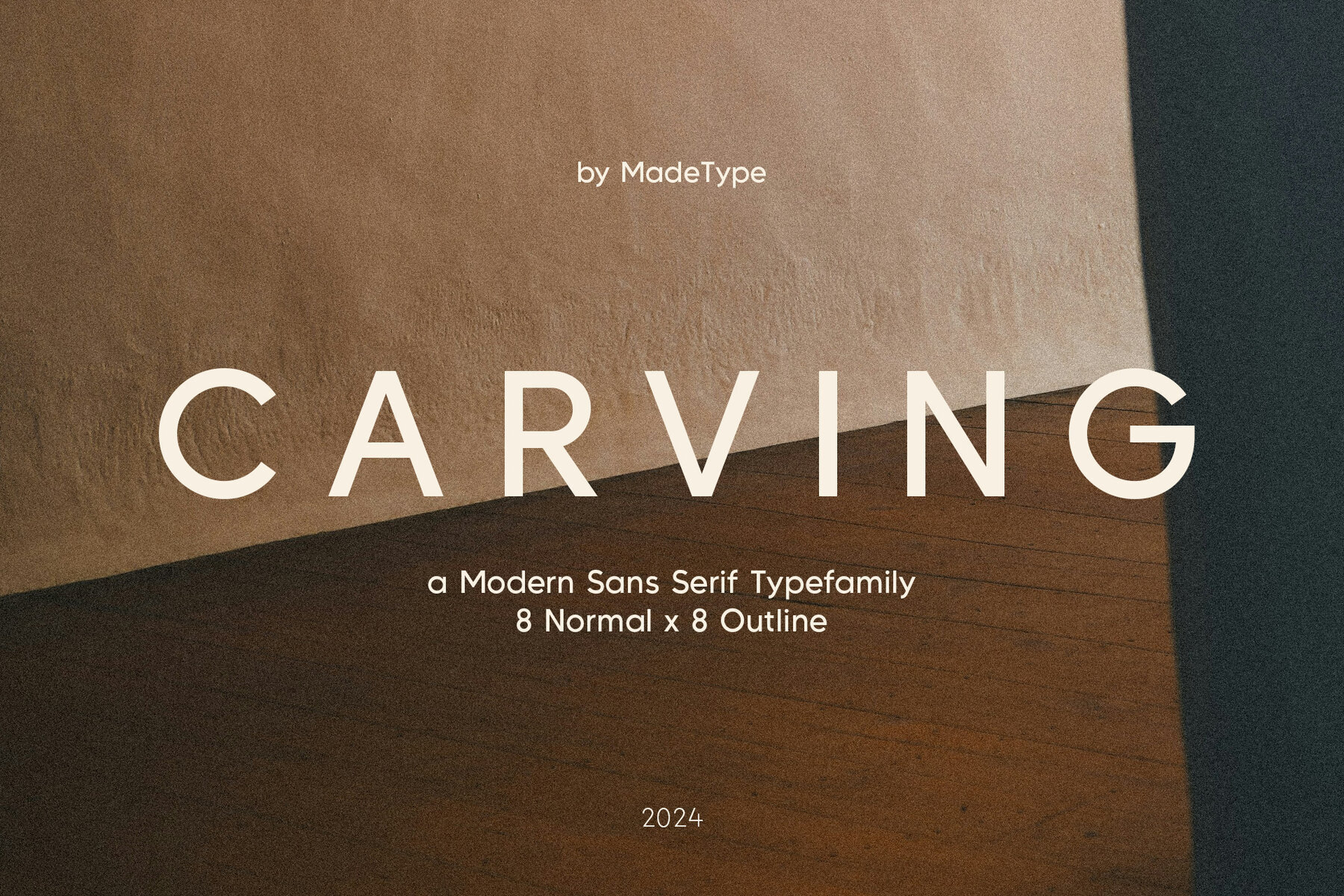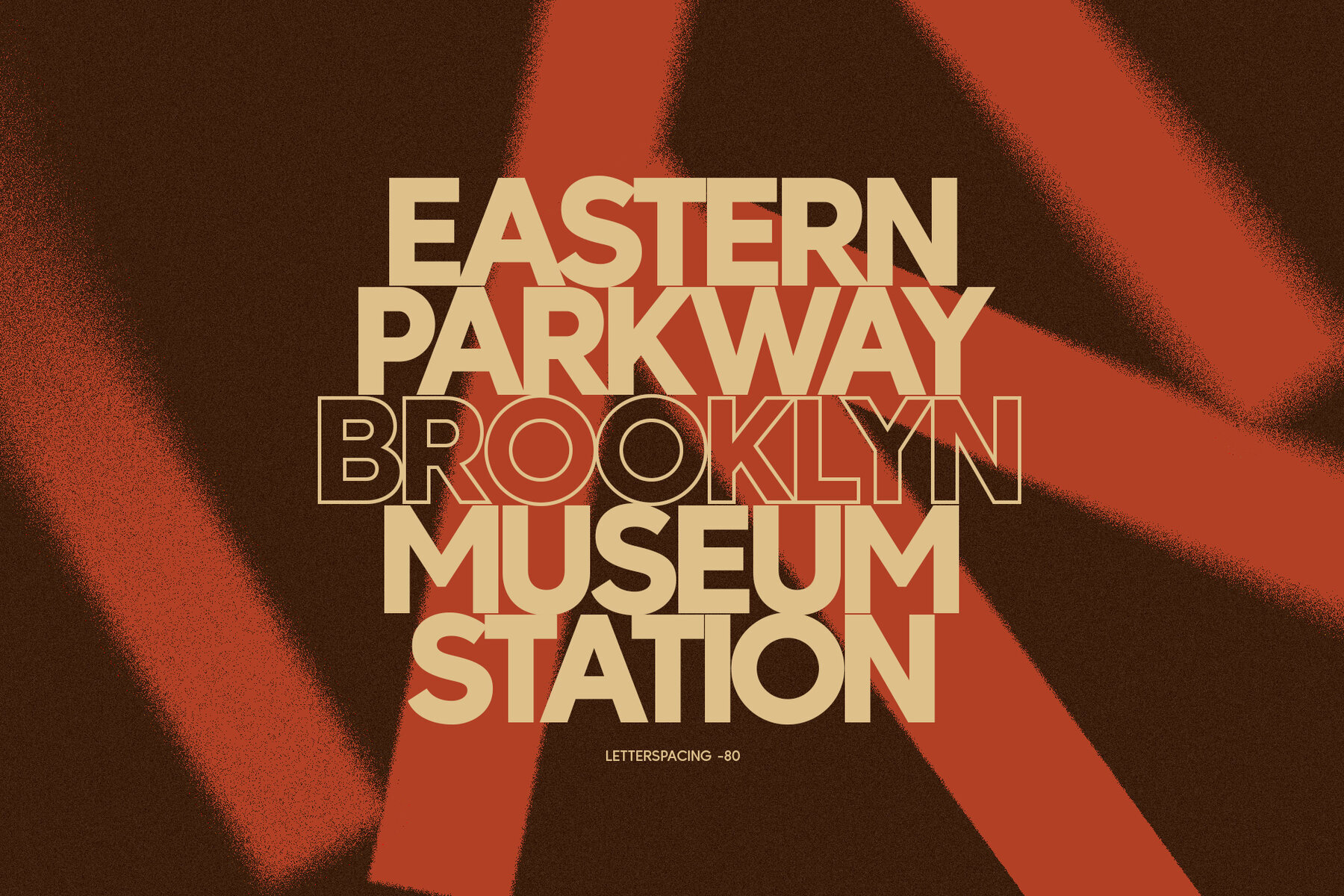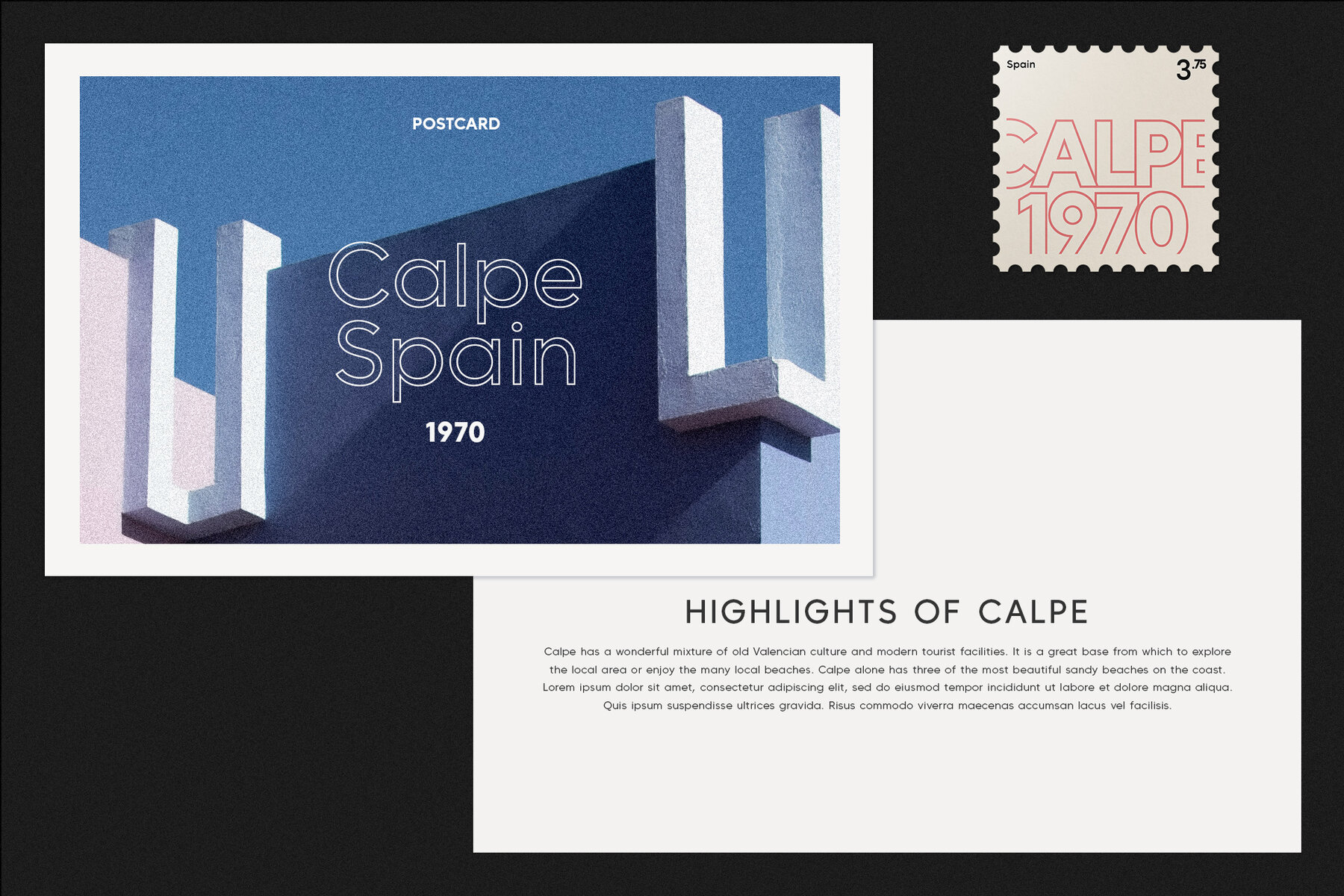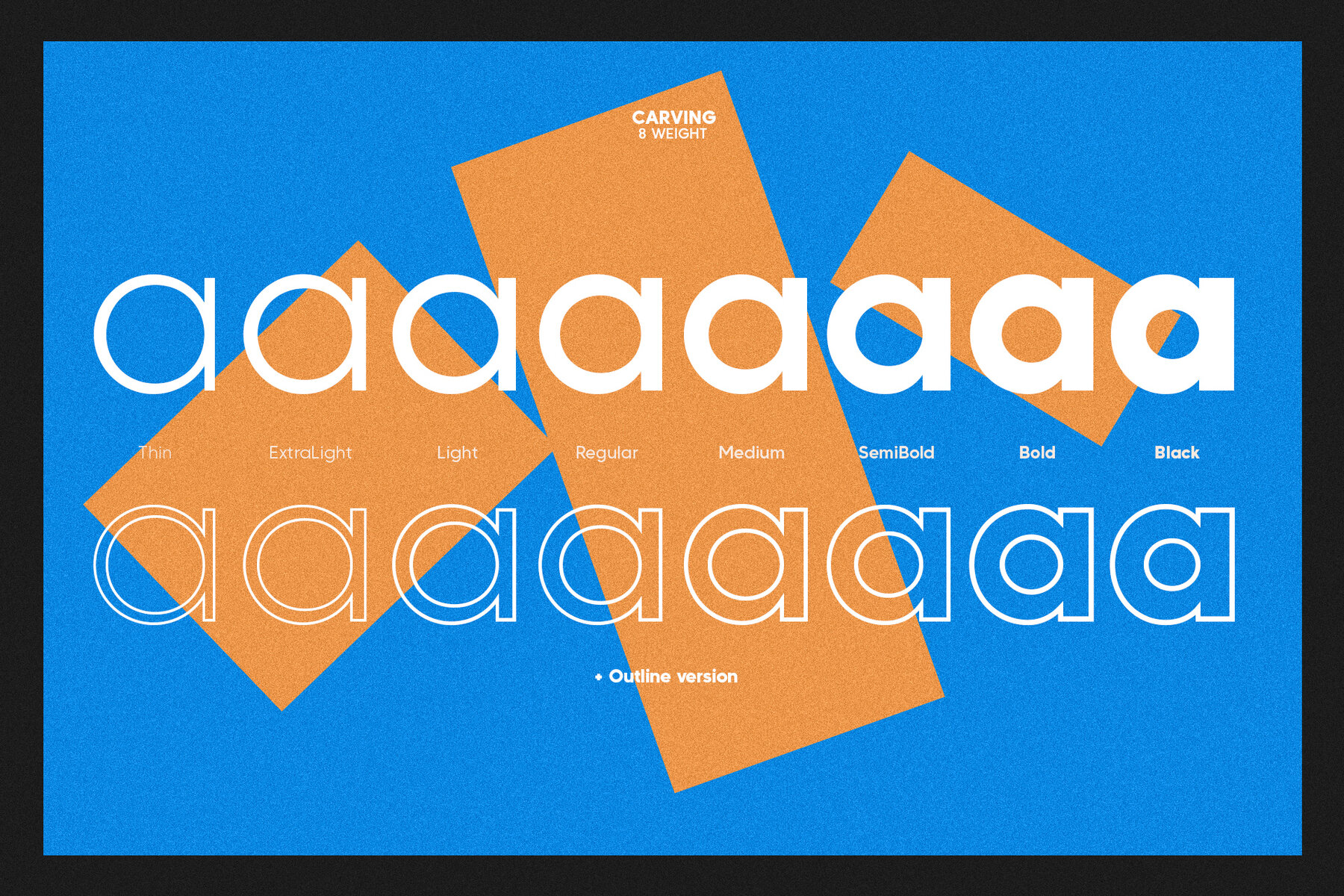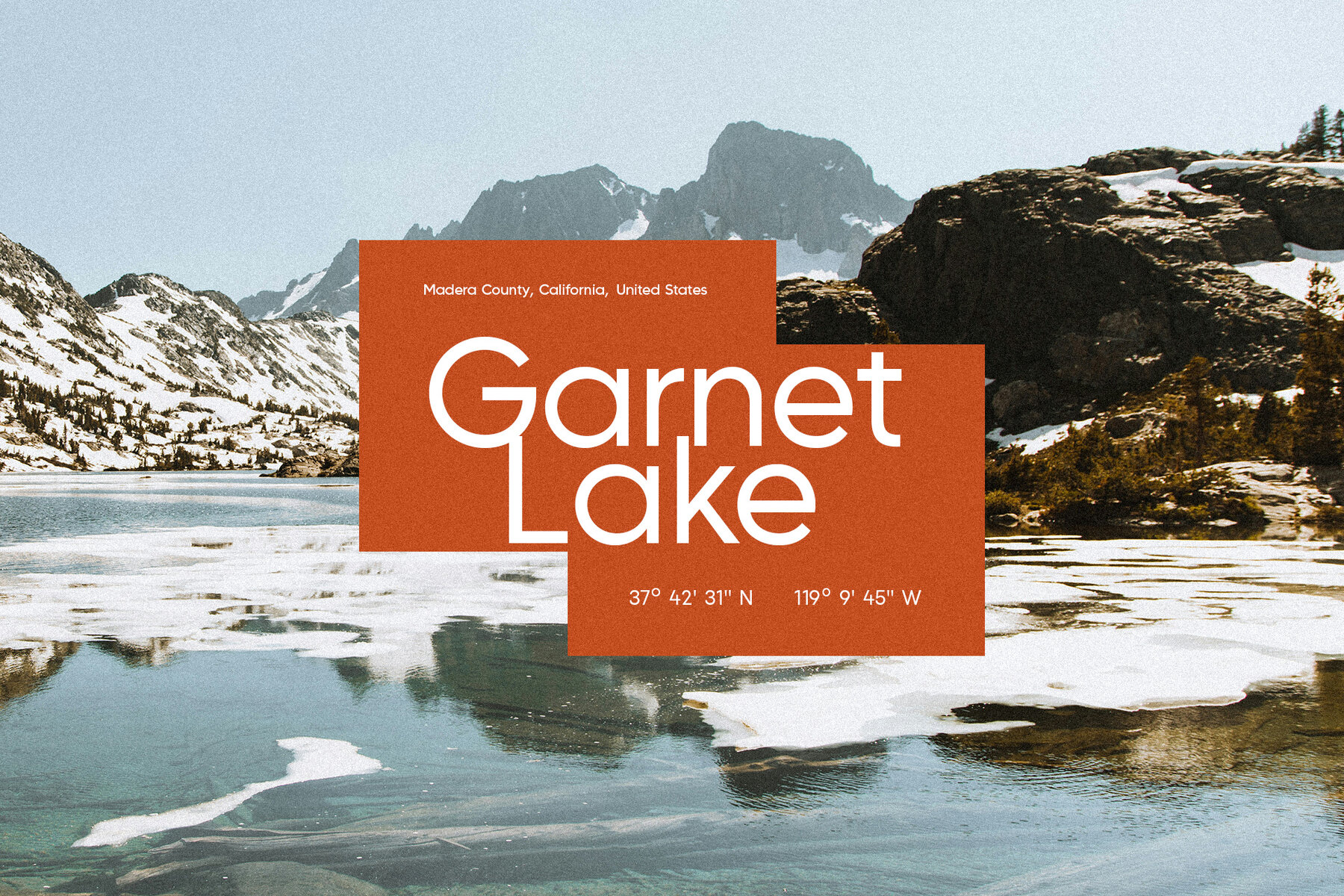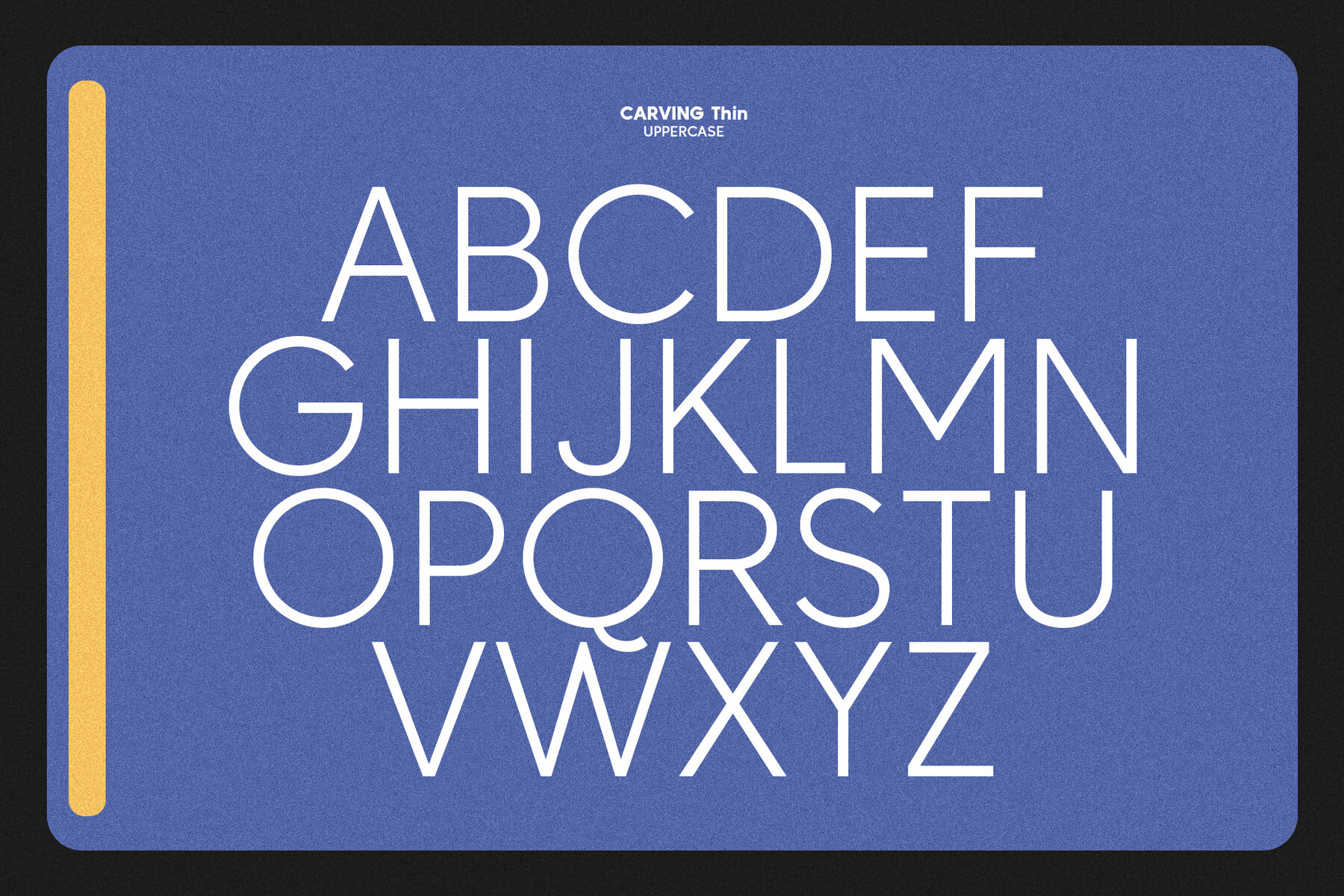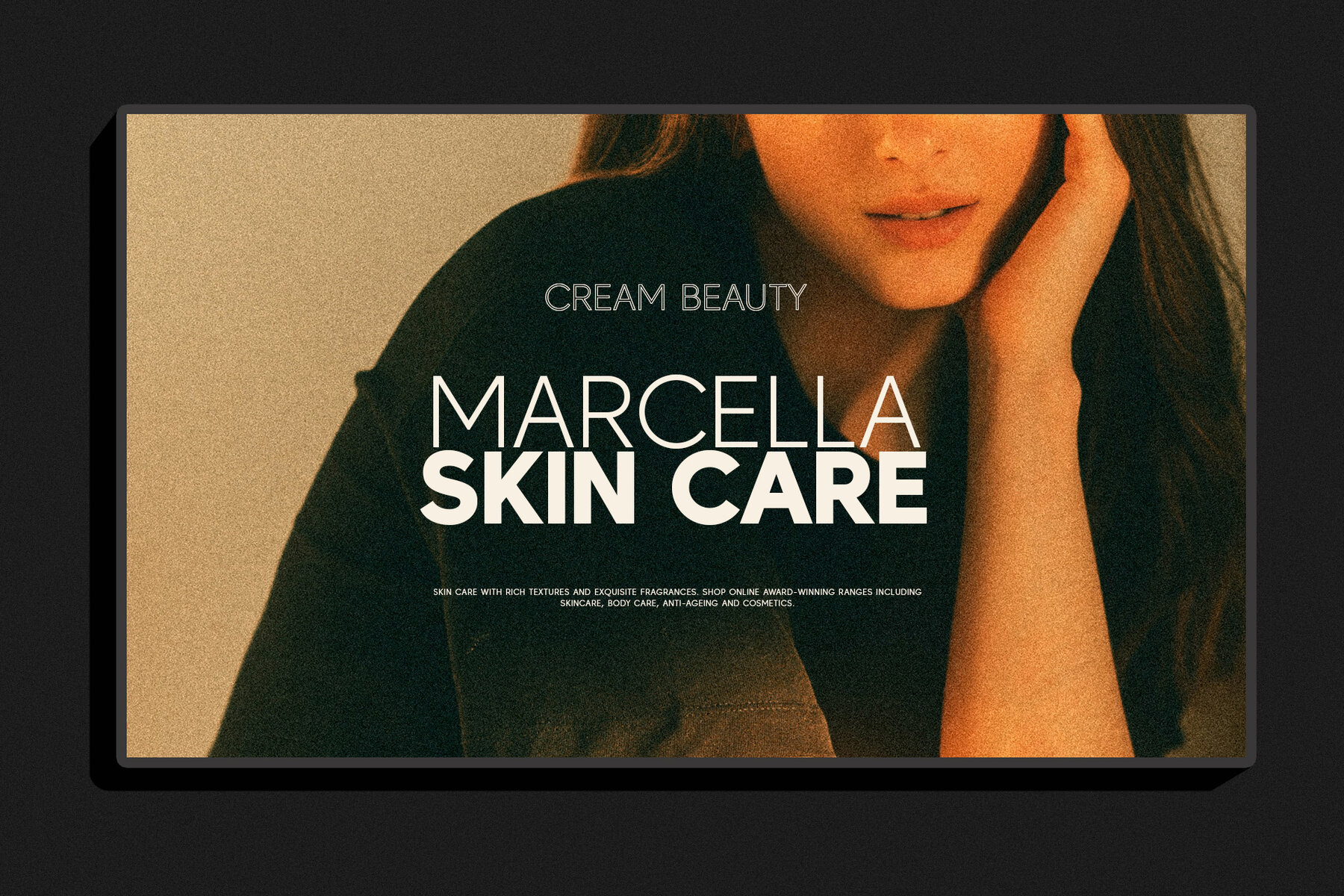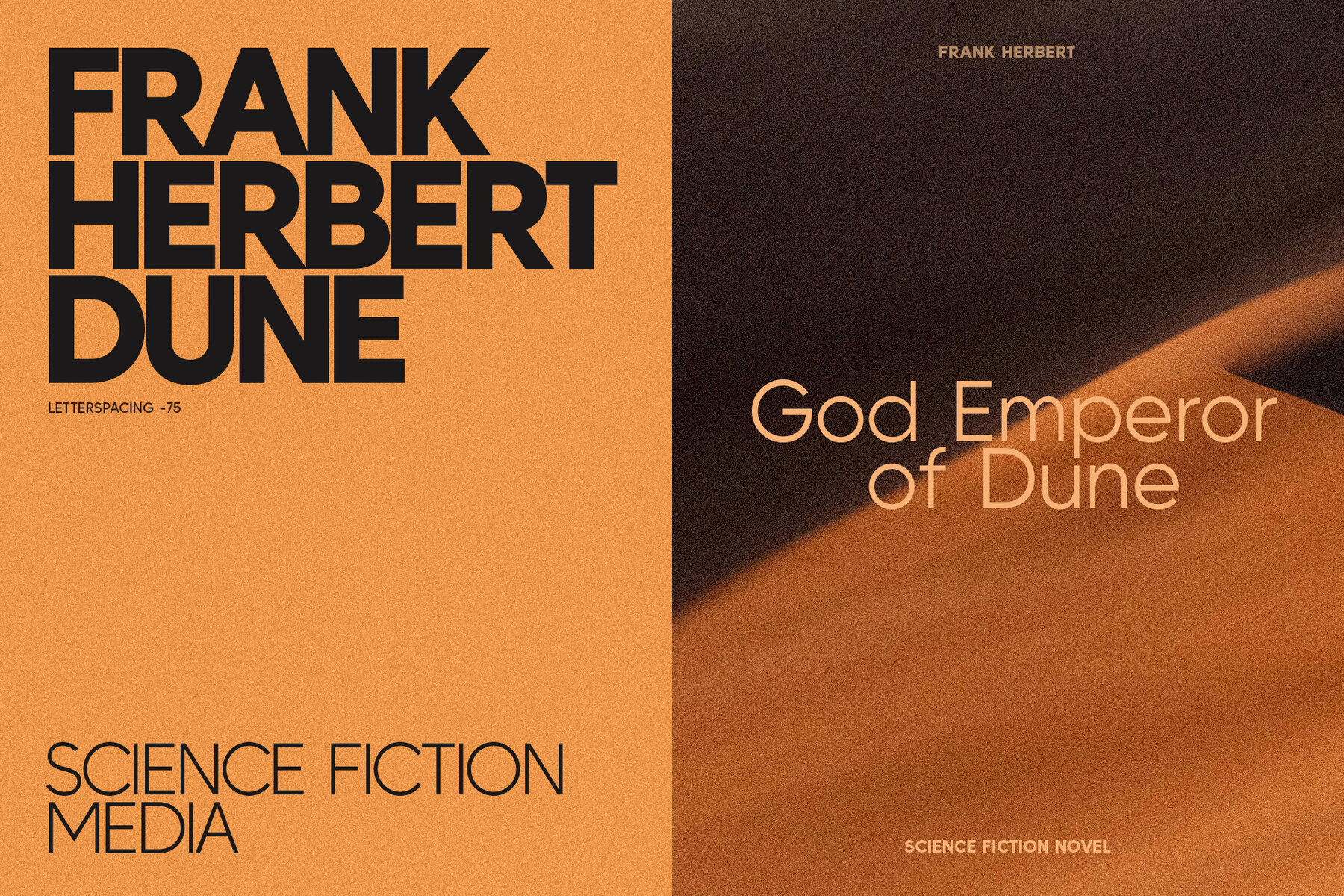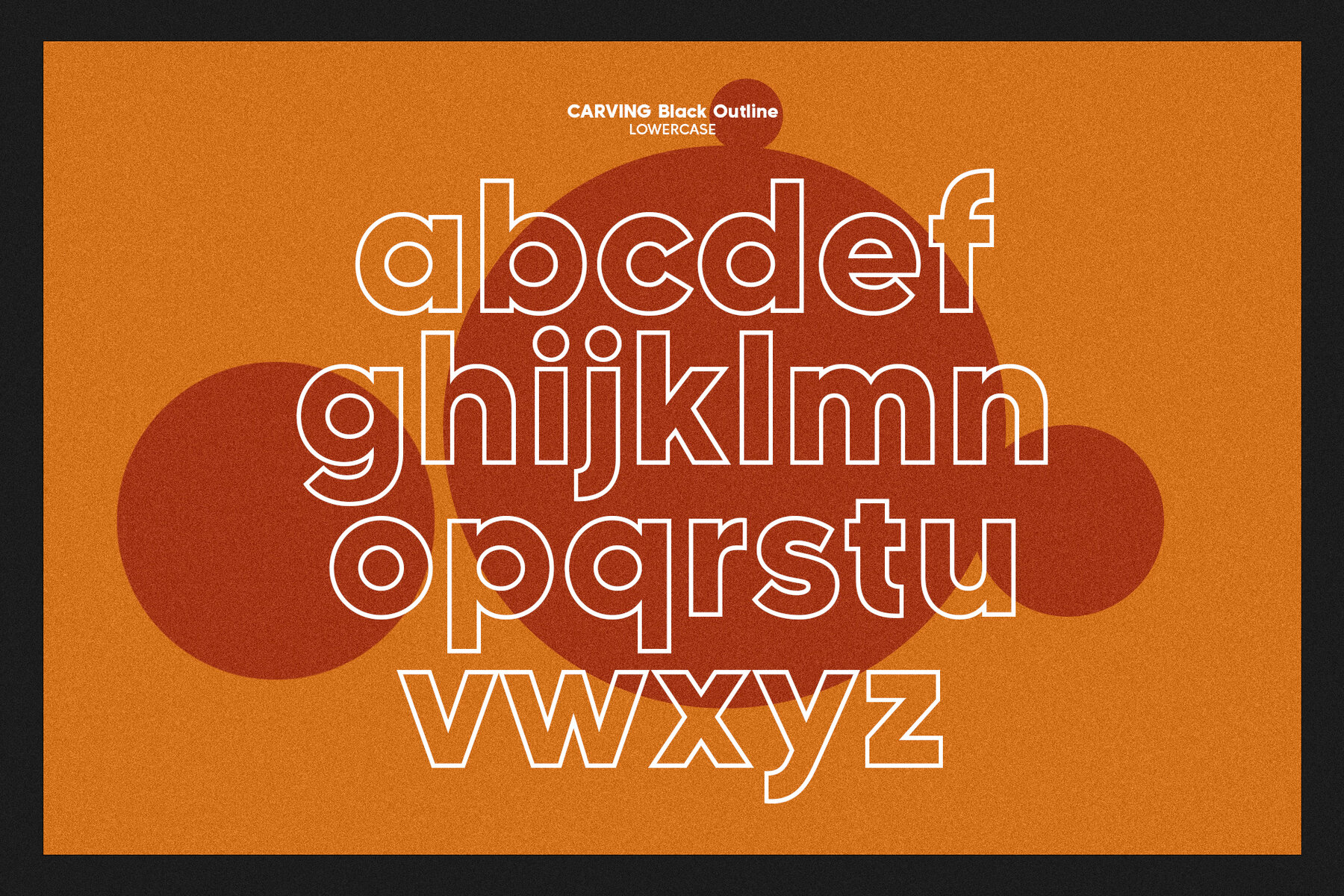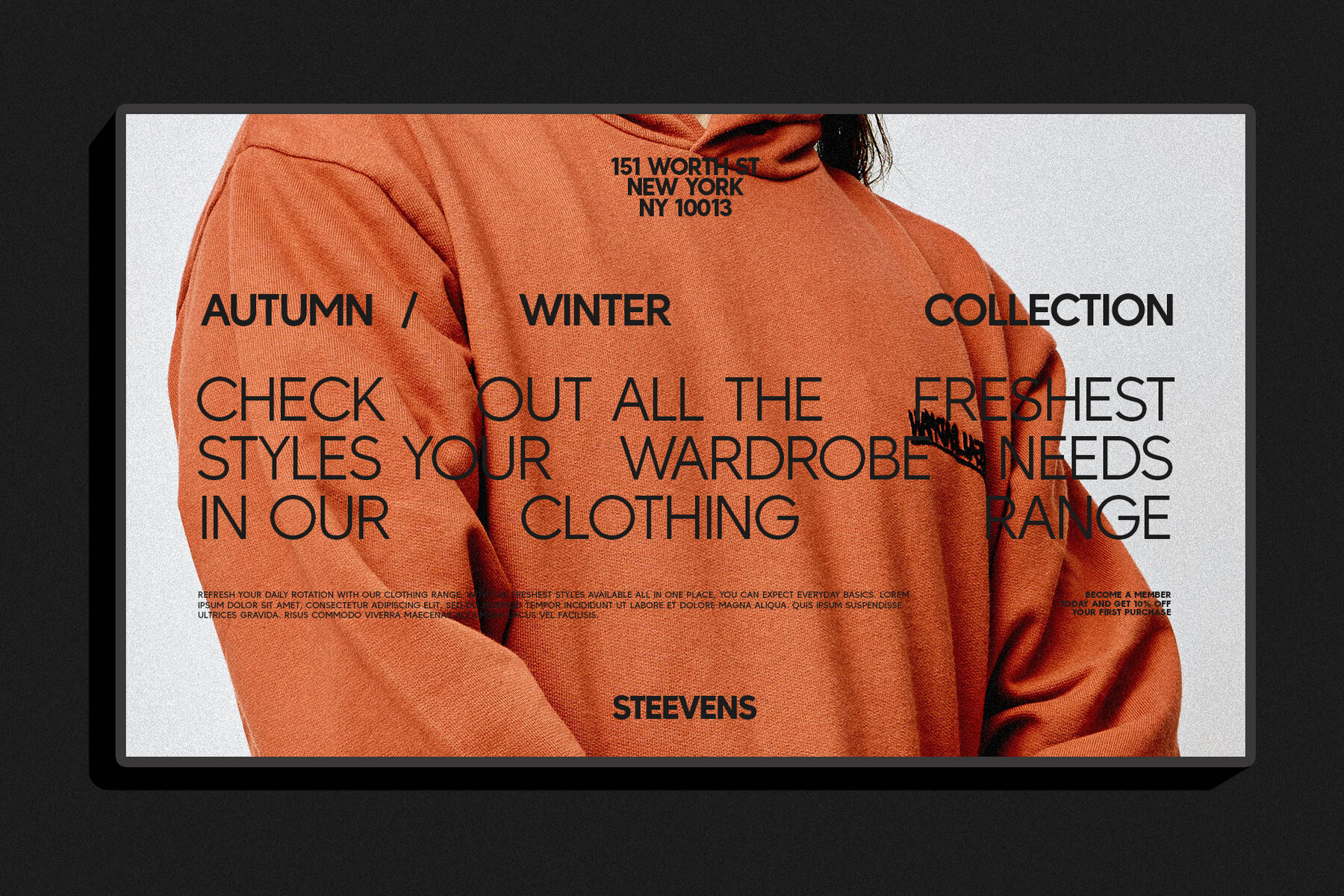
MADE CARVING Font
MADE CARVING is a modern sans serif typeface, designed to meet diverse design needs. With its clean lines and contemporary aesthetic, it's perfect for a variety of projects. This typeface is ideal for an extensive range of applications, including:MADE CARVING: Versatile Sans Serif Typeface
Suitability Across Multiple Projects
Extensive Typeface Options
Comprehensive Features